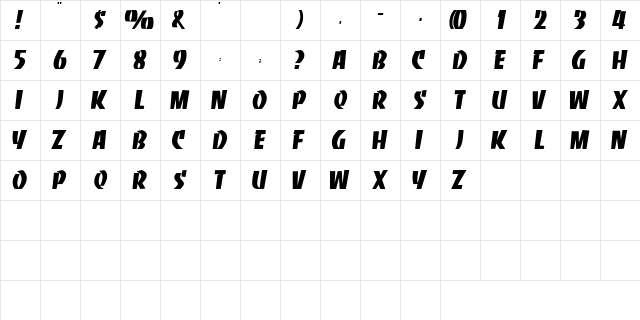
HipHopCapsSSK Regular
Design Context for HipHopCapsSSK Typeface
HipHopCapsSSK is a composed and adaptable typeface that performs quietly and consistently across a wide range of design contexts.